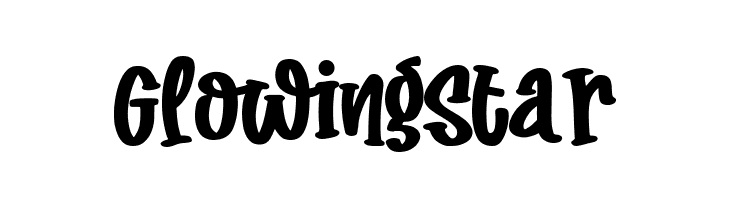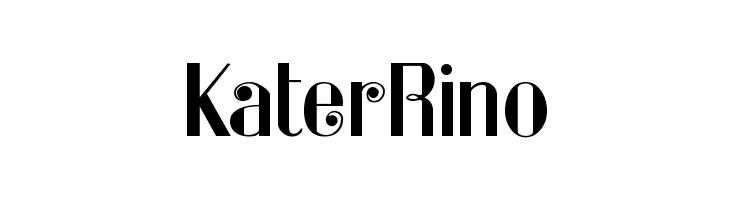
A bold, playful script font with a hand-drawn, energetic style.
A dynamic, brush-style font with expressive, hand-drawn strokes.
A bold, geometric font with outlined characters and a playful, modern style.
A playful, handwritten font with bold, rounded strokes and a whimsical style.
A bold, geometric font with a modern and impactful style.
A bold, decorative font with elegant curls and swirls.
A dynamic handwritten font with fluid strokes and a playful yet sophisticated style.
A bold, italic sans-serif font with a modern and dynamic style.
A bold, rounded font with a playful and friendly style.